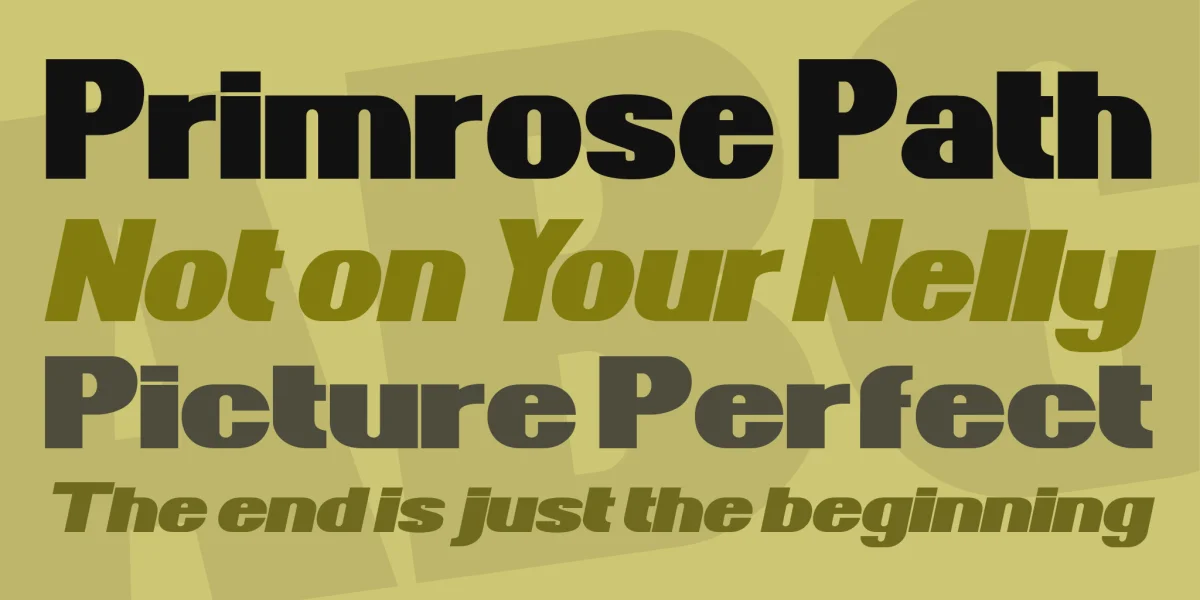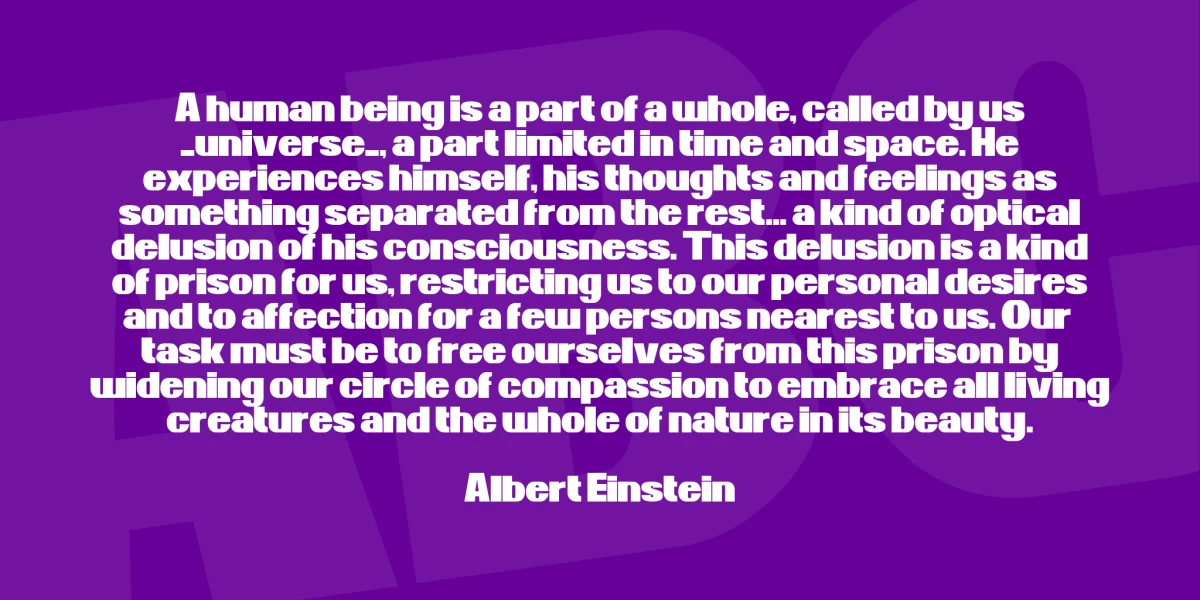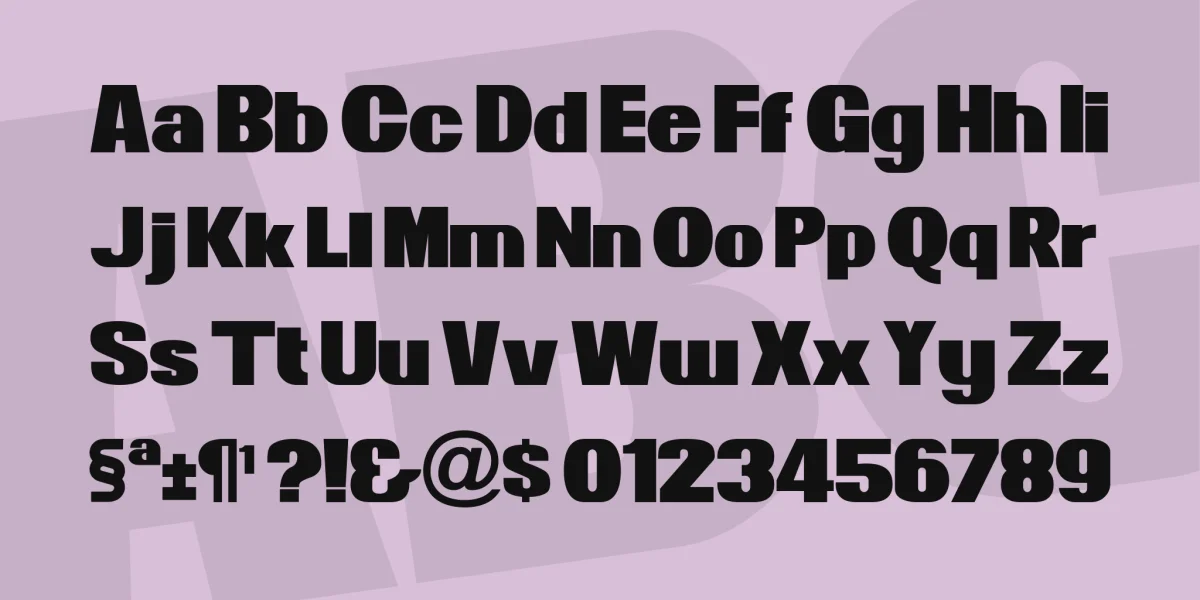
EXTRA!! Read all about it! Thanks for having a look at my latest typeface; News of the World. It features broad, strong, characters that appear to have come right off a magazine, sports blog, or newspaper. This style demands emphasis and is sure to grab your audience's attention. 4 different styles give your works some variety. Try Regular in all caps for an eye catching headline or wide italic for a company logo. The next time you're thinking of using Impact give this font a try.